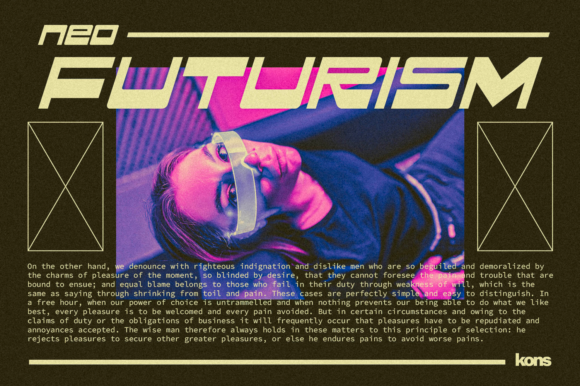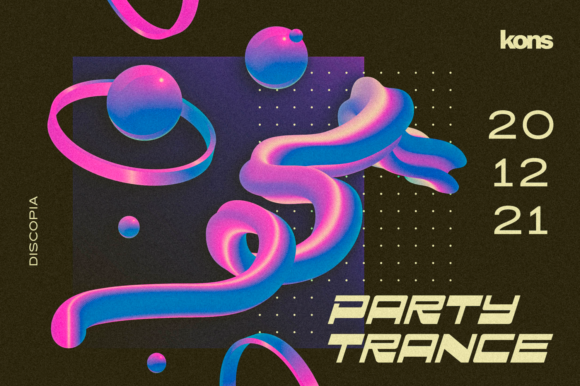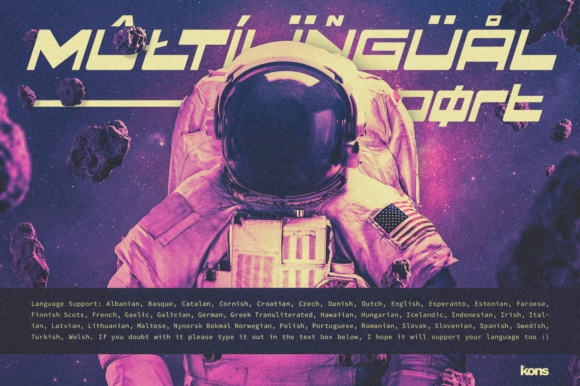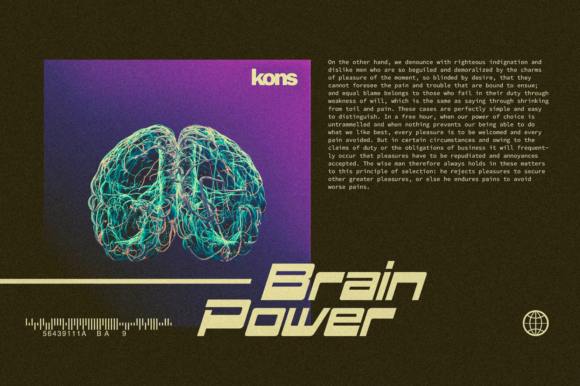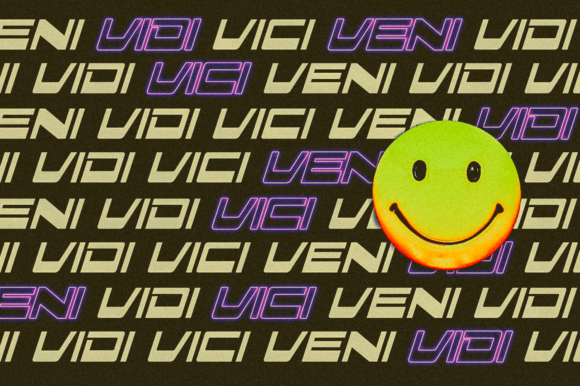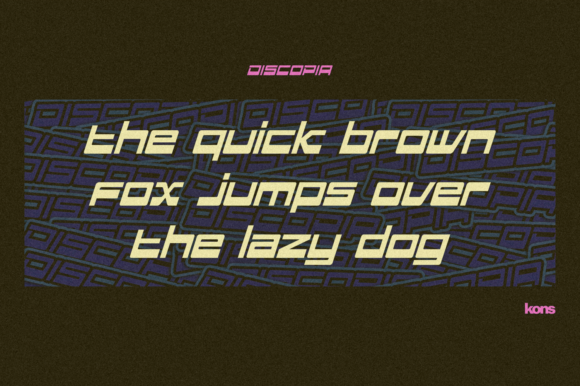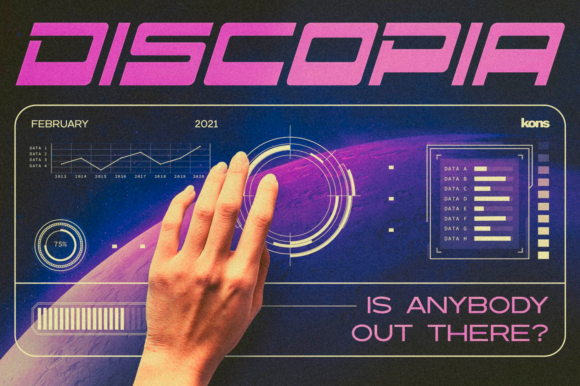
Introducing Discopia Font: The Ultimate Display Font for Bold and Creative Projects
Are you tired of using the same old fonts for your design projects? Look no further than Discopia Font, a cool, bold, and thick lettered display font that’s sure to make your creations stand out. With its unique and eye-catching style, Discopia Font is the perfect addition to any designer’s toolkit.
What is Discopia Font?
Discopia Font is a display font designed to make a statement. Its bold and thick lettering makes it perfect for headlines, titles, and other attention-grabbing elements. The font’s unique style is reminiscent of disco-era typography, with a modern twist that makes it suitable for a wide range of projects.
Key Features of Discopia Font
- Bold and Thick Lettering: Discopia Font features bold and thick lettering that grabs attention and makes a statement.
- Unique Style: The font’s unique style is inspired by disco-era typography, but with a modern twist that makes it suitable for contemporary projects.
- Highly Versatile: Discopia Font can be used for a wide range of projects, from posters and flyers to logos and branding materials.
- Easily Readable: Despite its bold and thick lettering, Discopia Font is surprisingly easy to read, making it perfect for headlines and titles.
How to Use Discopia Font
Discopia Font is incredibly versatile and can be used for a wide range of projects. Here are a few ideas to get you started:
- Posters and Flyers: Use Discopia Font to create eye-catching posters and flyers that grab attention and communicate your message.
- Logos and Branding: Add a touch of disco-era flair to your logo and branding materials with Discopia Font.
- Social Media Graphics: Use Discopia Font to create bold and eye-catching social media graphics that stand out in crowded feeds.
- Packaging Design: Add a pop of personality to your packaging design with Discopia Font.
Why Choose Discopia Font?
With so many fonts to choose from, why should you choose Discopia Font? Here are a few reasons:
- Unique Style: Discopia Font has a unique and eye-catching style that’s sure to make your projects stand out.
- High-Quality Design: The font is designed with high-quality and precision, ensuring that it looks great in any context.
- Easily Customizable: Discopia Font is easily customizable, allowing you to adjust the font to suit your project’s needs.
Tips for Using Discopia Font
Here are a few tips for getting the most out of Discopia Font:
- Use it Sparingly: While Discopia Font is bold and eye-catching, it can be overwhelming if used too much. Use it sparingly to create maximum impact.
- Pair it with Other Fonts: Discopia Font pairs well with a wide range of fonts. Experiment with different pairings to find the one that works best for your project.
- Experiment with Colors: Discopia Font looks great in a wide range of colors. Experiment with different colors to find the one that works best for your project.
Discopia Font is a cool, bold, and thick lettered display font that’s perfect for designers and crafters looking to add a touch of personality to their projects. With its unique style, high-quality design, and ease of use, Discopia Font is sure to become a favorite in your font collection. So why wait? Download Discopia Font today and start creating bold and eye-catching projects that stand out!